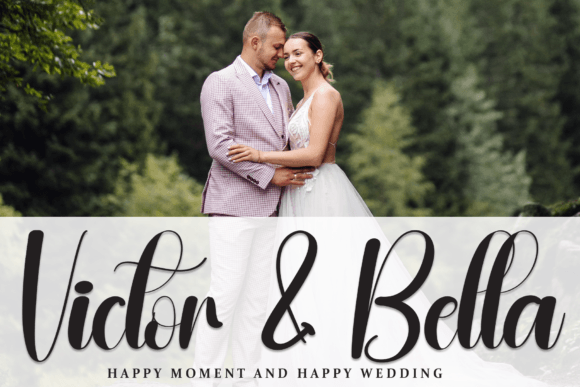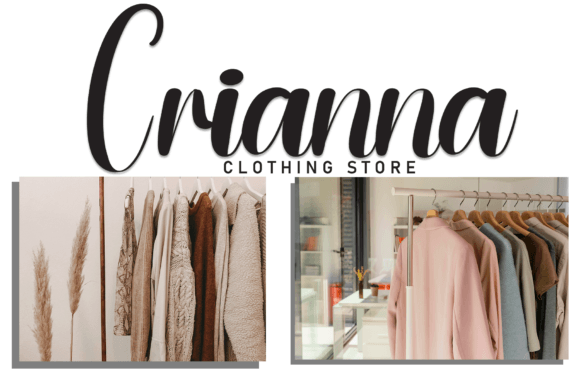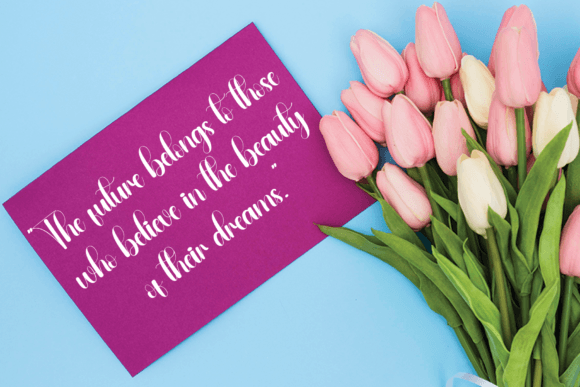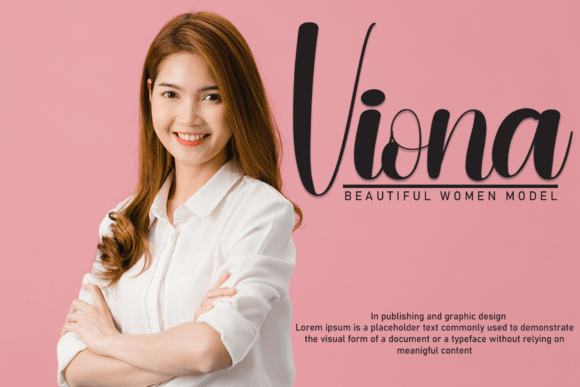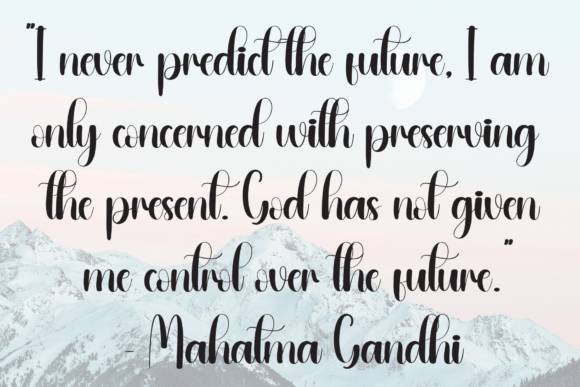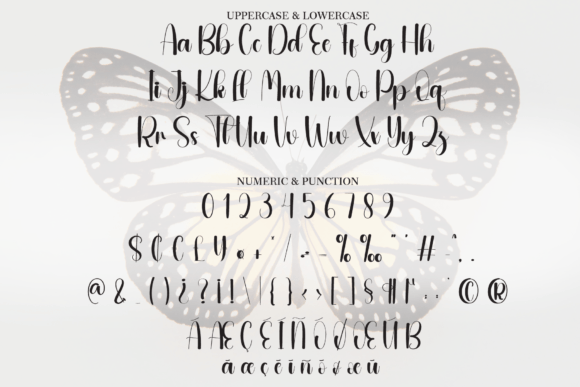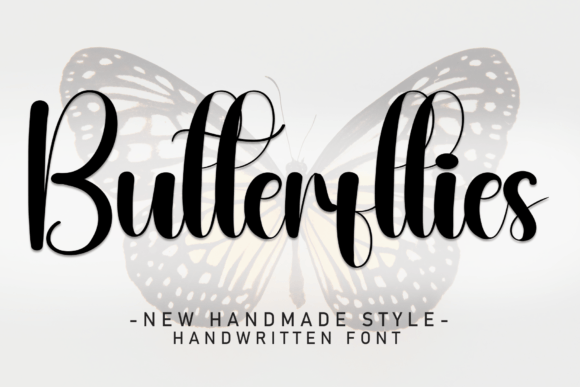
Introducing Butterflies Font: The Sweet and Friendly Handwritten Font for Your Designs
Are you looking for a font that can add a touch of sweetness and friendliness to your designs? Look no further than Butterflies Font! This beautiful handwritten font is perfect for creating wedding invitations, cards, and other designs that require a fun and playful touch.
What Makes Butterflies Font Special?
Butterflies Font is a fresh and cute font that is sure to capture the hearts of designers and crafters alike. Its sweet and friendly style makes it ideal for a variety of design projects, from wedding invitations and cards to party decorations and more. The font’s playful and whimsical feel is sure to add a touch of magic to any design.
Wedding invitations and cards are a great way to showcase the beauty of Butterflies Font. The font’s elegant and cursive style makes it perfect for formal and informal wedding invitations, as well as for cards and other stationery. Whether you’re a designer or a crafter, Butterflies Font is sure to make your wedding designs stand out.
Why Choose Butterflies Font?
There are many reasons why designers and crafters choose Butterflies Font for their designs. Here are just a few:
- Unique and Playful Style: Butterflies Font has a unique and playful style that is sure to add a touch of fun to any design.
- Elegant and Cursive: The font’s elegant and cursive style makes it perfect for formal and informal designs.
- Easy to Read: Butterflies Font is easy to read, making it perfect for designs that require a clear and legible font.
- Versatile: The font is versatile and can be used for a variety of design projects, from wedding invitations and cards to party decorations and more.
How to Use Butterflies Font in Your Designs
Using Butterflies Font in your designs is easy! Here are a few tips to get you started:
- Pair with Other Fonts: Pair Butterflies Font with other fonts to create a unique and interesting design.
- Add Graphics and Images: Add graphics and images to enhance your design and make it more visually appealing.
Here are a few tips for designers and crafters who want to get the most out of Butterflies Font:
- Use for Digital and Print Designs: Use Butterflies Font for both digital and print designs, from social media graphics to wedding invitations and cards.
- Experiment with Different Sizes: Experiment with different sizes to find the perfect fit for your design.
- Make it Your Own: Add your own personal touch to your designs by experimenting with different colors, graphics, and images.